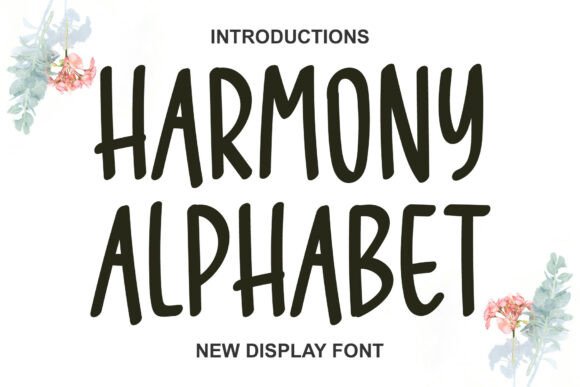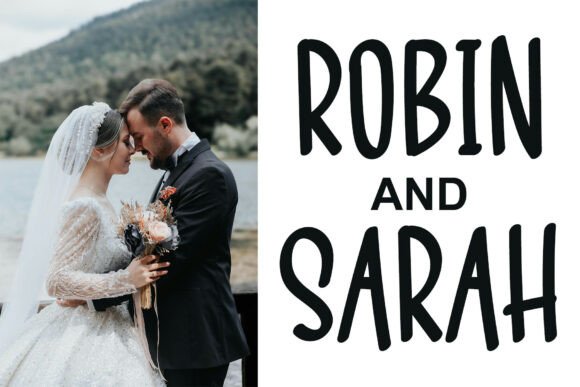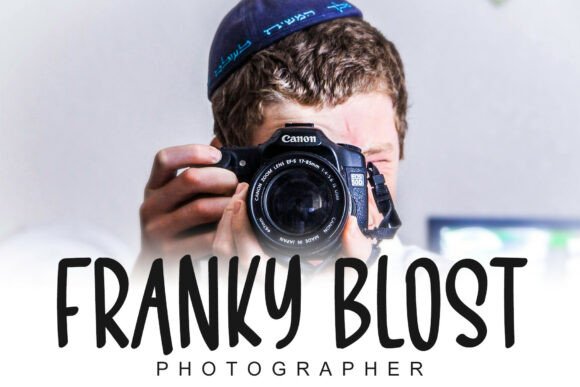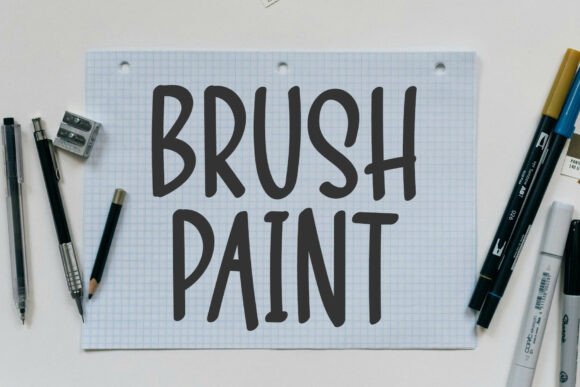
Harmony Alphabet Font
About the Harmony Alphabet Font
Presenting Harmony Alphabet Font, a unique and stylish typeface that will make your work stand out. Harmony Alphabet is a magical handwritten font carefully created to give a touch of elegance to your designs. Whether you’re looking for fonts for Instagram or calligraphy scripts for DIY projects, this font will turn any creative idea into a true piece of art!
Harmony Alphabet’s elegant, slightly informal style works best for short headlines, logos, and branding elements where a touch of handwritten charm is desired. It’s ideal for invitations, social media graphics, and packaging design for products aimed at a sophisticated yet approachable audience. Avoid using it for large blocks of body text or UI elements; its delicate nature makes it less legible at smaller sizes or within complex layouts.
This font pairs well with clean sans-serif fonts like Montserrat or Open Sans for a balanced contrast between the hand-drawn elegance of Harmony Alphabet and a modern, readable typeface. For a more luxurious feel, consider pairing it with a classic serif like Garamond or Didot. Avoid pairing it with other highly decorative or script fonts, as this could create visual clutter.
Harmony Alphabet projects a sophisticated yet friendly personality. Its slightly imperfect forms convey a sense of warmth and authenticity, making it suitable for brands that prioritize handcrafted quality and personal connection with their customers.
Harmony Alphabet Font Usage Examples
Harmony Alphabet Font Example